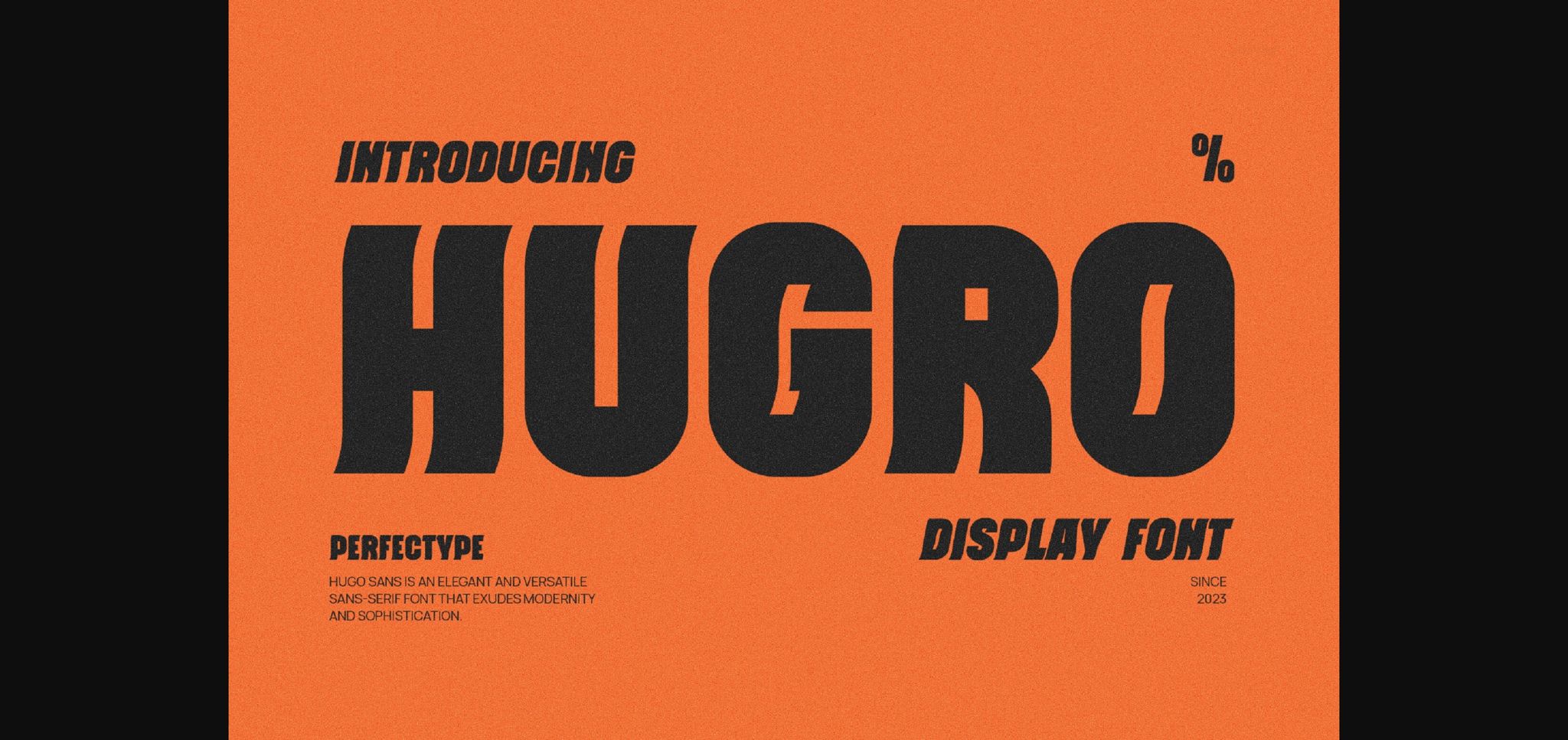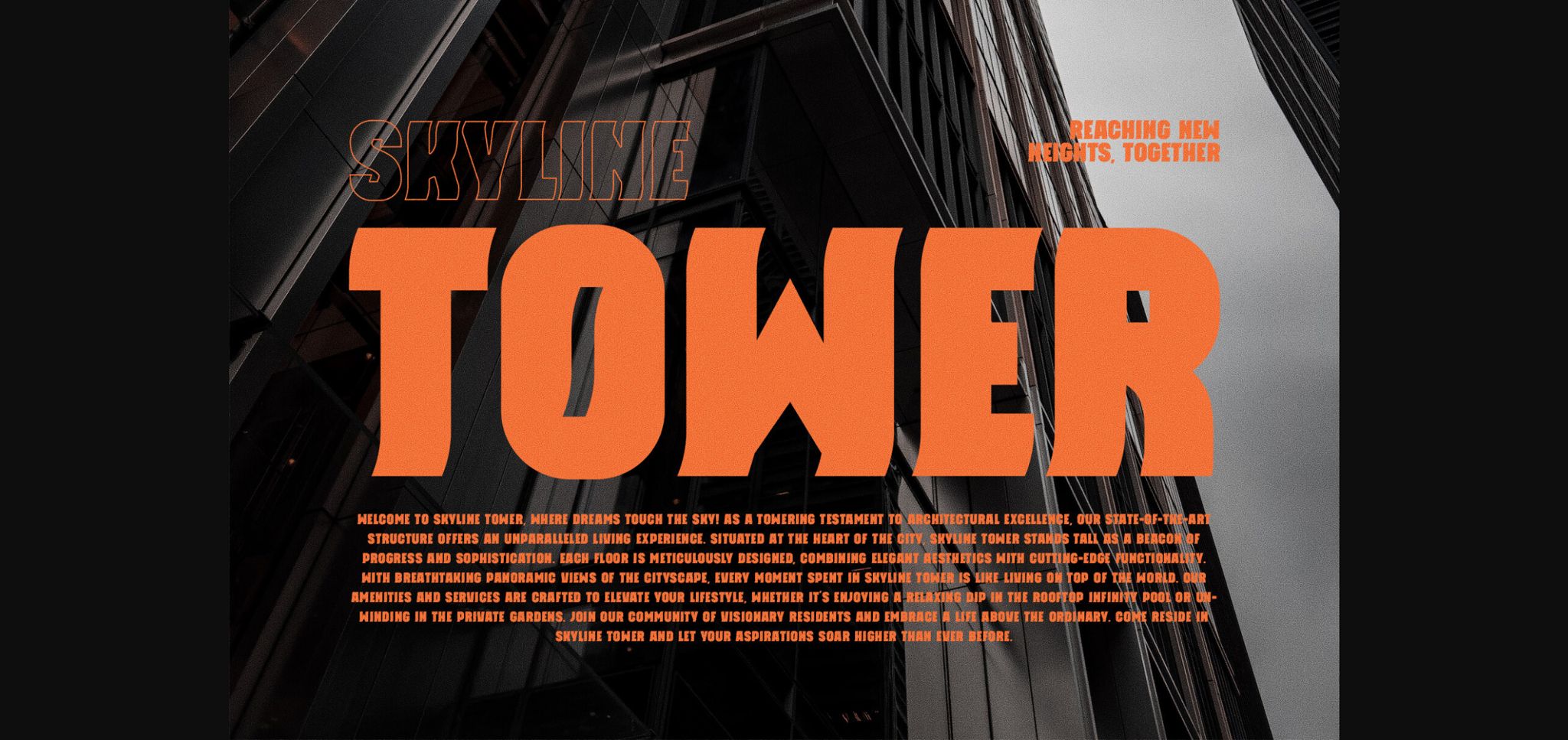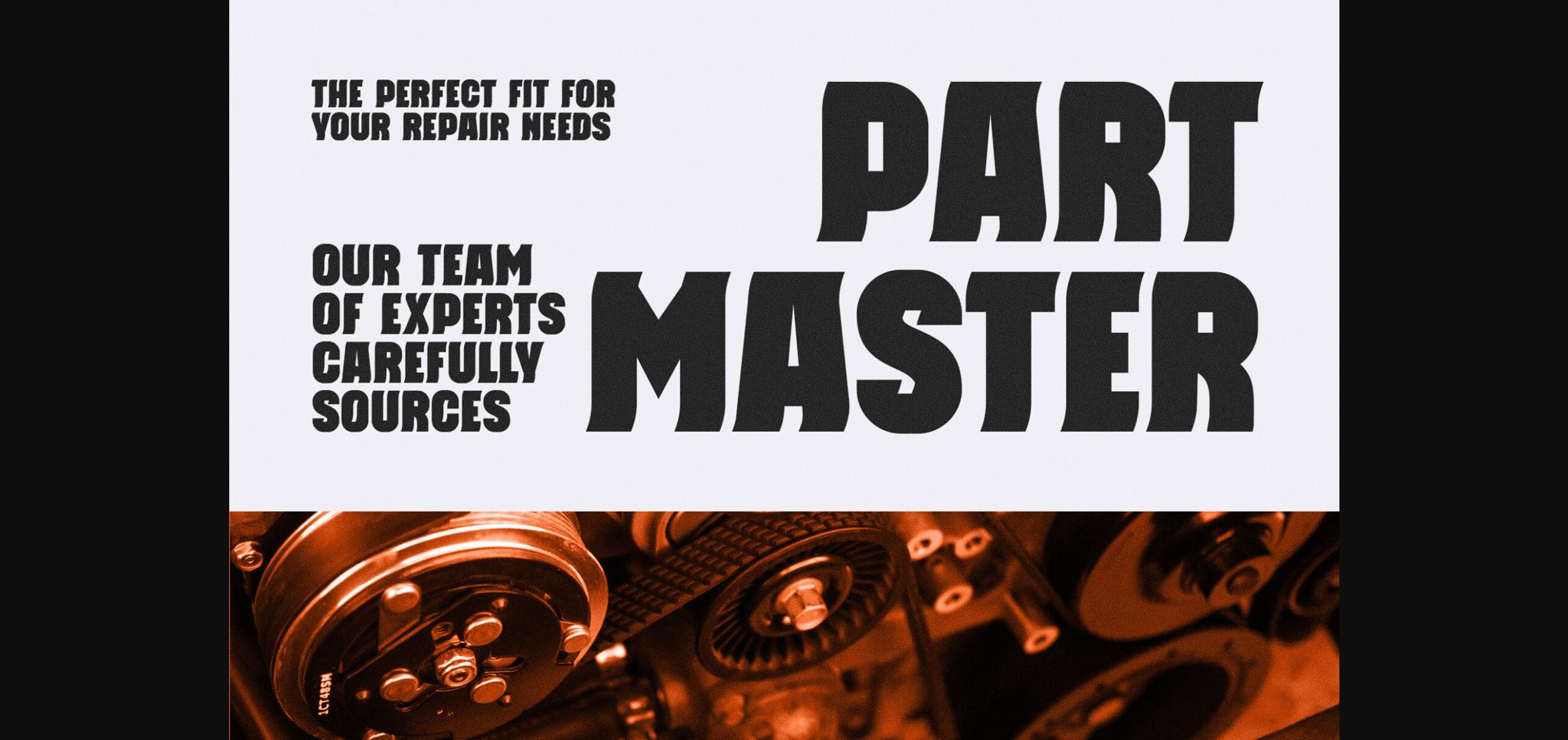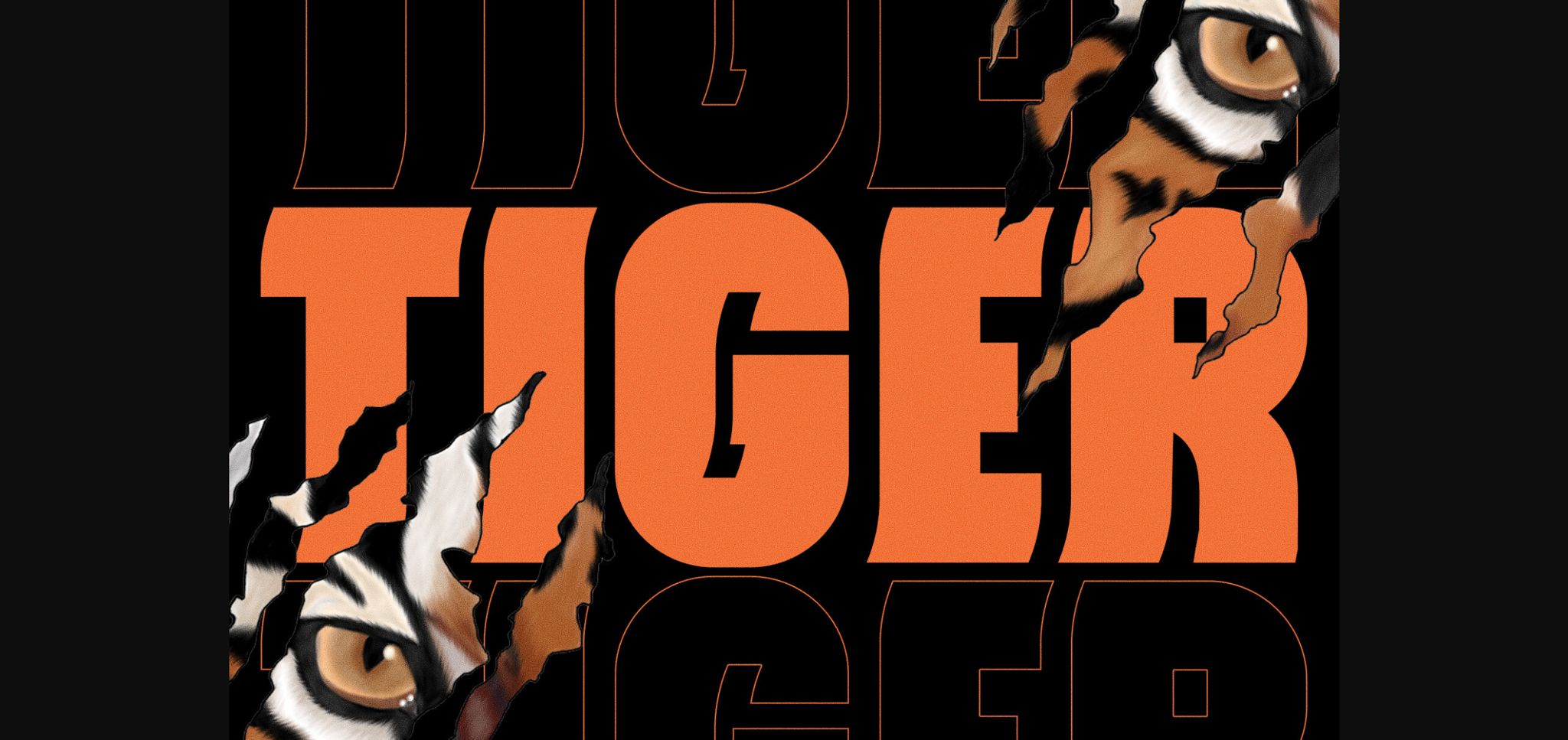
About Hugro Font
Hugro is a sleek and modern sans serif font with a futuristic vibe. Its clean lines and contemporary style make it perfect for giving your projects a fresh and cutting-edge look. Whether you’re designing for technology, fashion, or any modern context, Hugro adds a touch of sophistication to your text. Embrace the future of design with Hugro’s simple yet bold aesthetic.